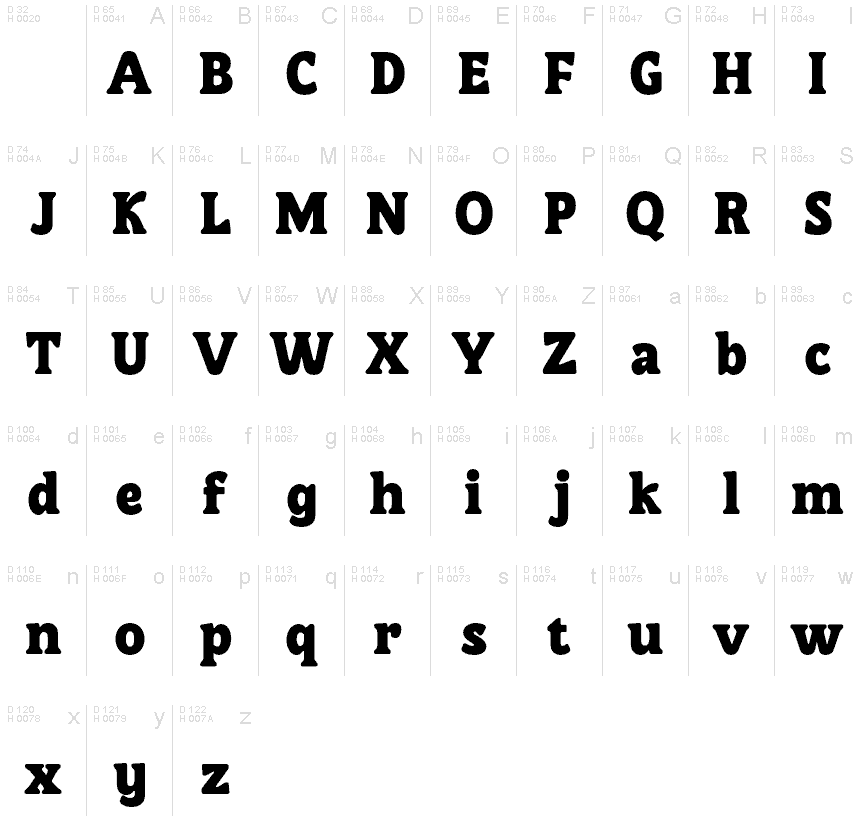
CS Dovie Regular Demo
CS Dovie font by Craft Supply Co. is a bold serif with an edgy, attention-grabbing design. The vintage feel of the display font is emphasized with each letter for a strong presence, one which has no modern elements whatsoever but which rather draws inspiration from classical and traditional designs.
A free resource for users, CS Dovie fits book covers and posters, it can be used in branding presentations or packaged product designs (glasses, bottles). It’s also a great display font for both rendered products and digital projects such as startups or web pages.